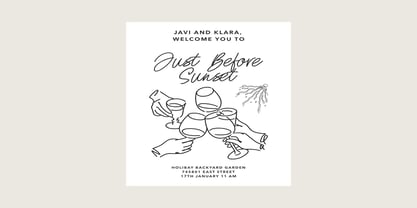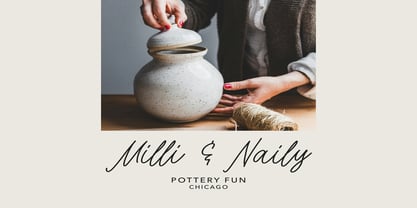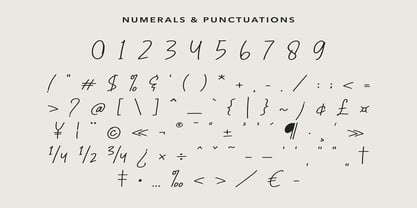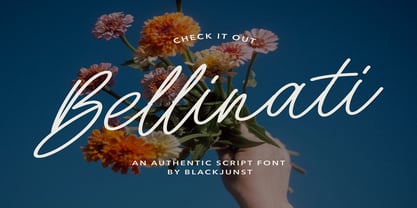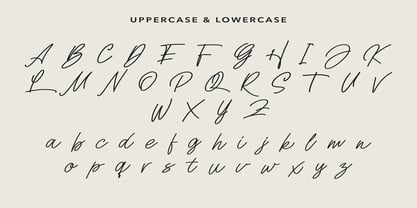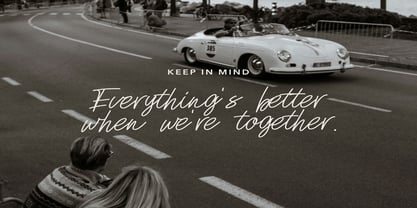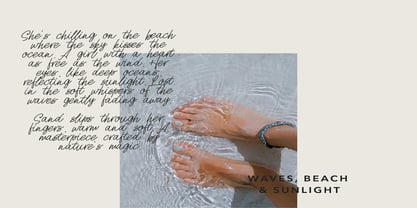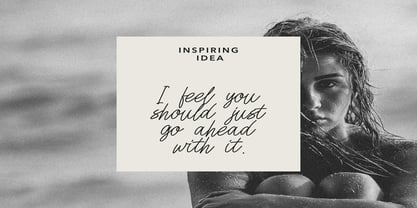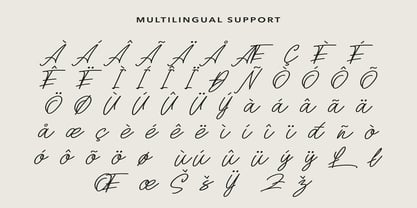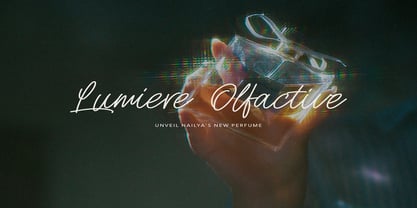
Bellinati
by Black Junst
The Bellinati Font Family was designed by Maulana Semar and published by Black Junst. Bellinati contains 1 styles. More about this family
Bellinati is a graceful script font that radiates elegance, freedom, and charm in every curve. Handcrafted with a clean and authentic monoline style, Bellinati is perfect for branding projects that demand personality and a natural handwritten touch.
Whether you're designing wedding invitations, social media quotes, packaging, logos, or lifestyle blog titles, Bellinati brings a soft, feminine feel that speaks of sophistication without trying too hard.
Its flowing strokes and modern yet romantic aesthetic make it a go-to font for designers seeking authenticity and emotional appeal. Each letter has been carefully designed to maintain rhythm and harmony — perfect for both digital and print.
Designers: Maulana Semar
Foundry: Black Junst